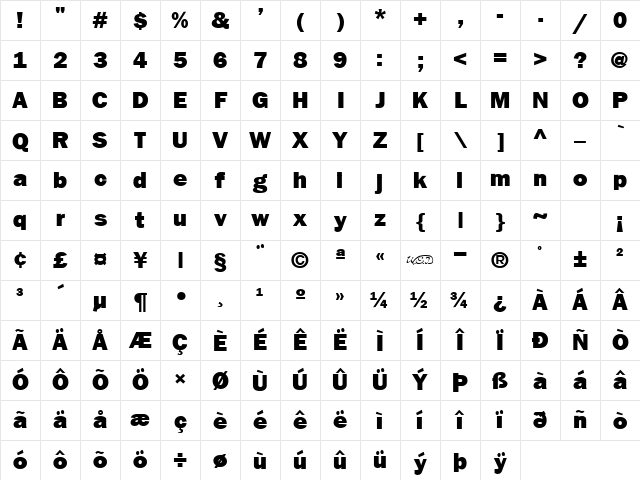
FrankfurtHeavy Regular
FrankfurtHeavy Family
Design Context for FrankfurtHeavy
FrankfurtHeavy is a composed and adaptable typeface that performs quietly and consistently across a wide range of design contexts.